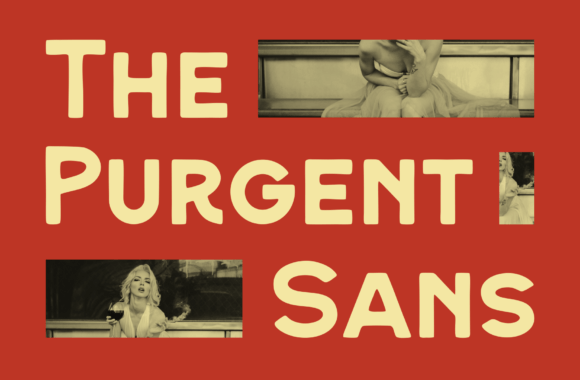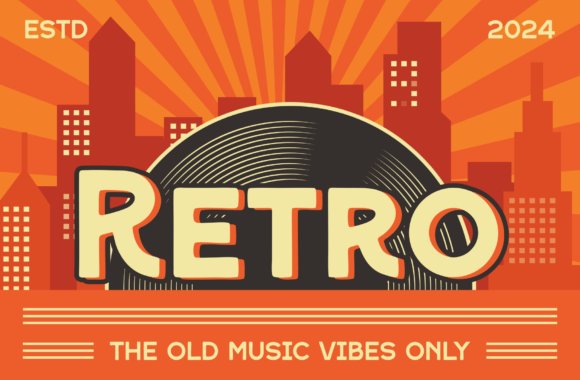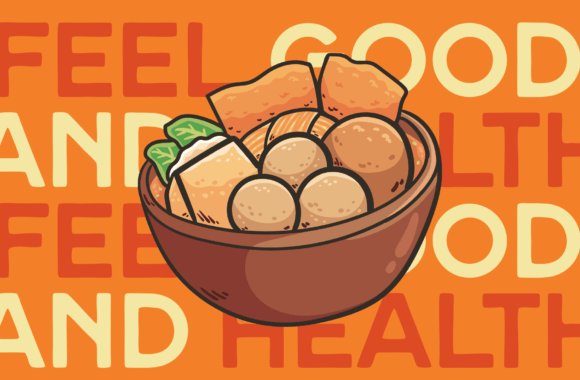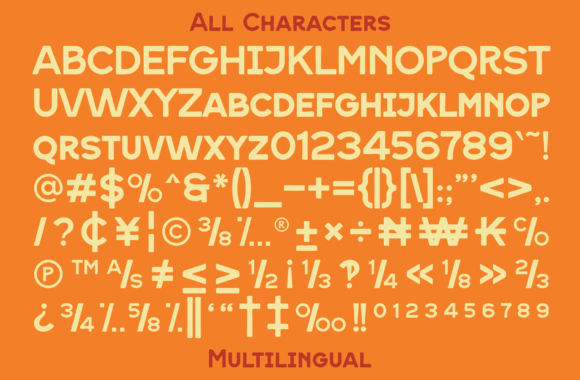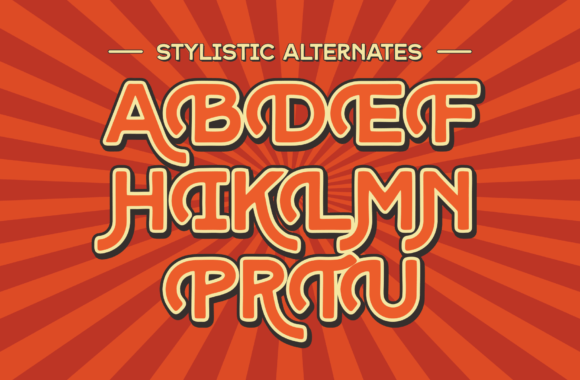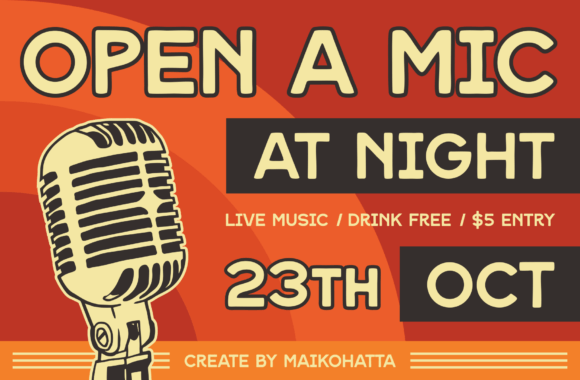
Introduction to Purgent Font
Remember that moment when you’re brainstorming ideas for a new creative project and you stumble upon the perfect font to bring your vision to life? For designers, finding that one special font can be a game-changer. It’s like discovering a hidden gem that elevates your entire design and sets it apart from the rest. That’s exactly what we’re excited to introduce you to today – the Purgent Font.
This bold and authentic sans serif font is more than just a design resource – it’s a high-quality tool that can take your branding projects to the next level. Whether you’re creating logos, template designs, posters, or social media graphics, Purgent Font is the perfect companion to help you achieve your creative goals. And the best part? It’s available for free download, making it an accessible design solution for designers of all levels.
Key Features of Purgest Font
- Purgent Font is a high-quality, free design resource suitable for creative projects requiring a modern and sleek aesthetic.
- The font offers a transparent background, making it ideal for use with logos, icons, and other design elements that require a clean and minimalist look.
- This font is available for free download and comes in a single weight, making it easy to incorporate into your design project.
- The font’s unique characteristics include a clean, sans-serif design and a subtle rounded edge, making it perfect for use in modern and creative projects.
- Purgent Font is a versatile design resource that can be used for a variety of purposes, from branding and identity to digital and print materials.
Honest Review: Purgest Font
As a designer, I’m always on the lookout for high-quality design resources that can elevate my creative projects. Recently, I had the chance to work with the Purgest Font, and I’m excited to share my honest review with you.
- Transparent background: I loved that the font had a transparent background, making it easy to overlay on any image or background.
- Clean and modern design: The font has a clean and modern design that’s perfect for a variety of creative projects.
- Limited font styles: While the font is clean and modern, it’s a bit limited in terms of font styles, which might be a drawback for some designers.
- Not ideal for body text: The font is better suited for headings and titles, rather than body text, where readability is crucial.
Overall, I think the Purgest Font is a solid addition to any designer’s toolkit. While it may not be perfect, its clean design and transparent background make it a great choice for creative projects. Just be mindful of its limitations, and you’ll be golden.
Tips for Getting the Most Out of Purgent Font
The Purgent Font is ideal for use in creative projects, such as logo design, branding, and typography. It’s also great for use in presentations, reports, and other documents where a high-quality font is needed. The transparent background feature of the font makes it versatile and easy to use in various design contexts.